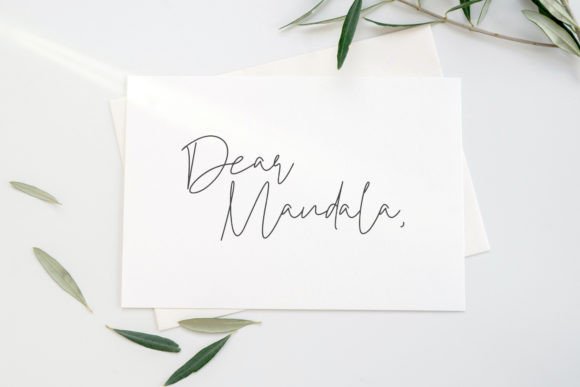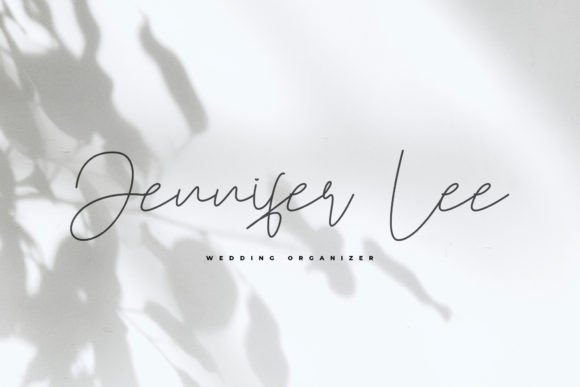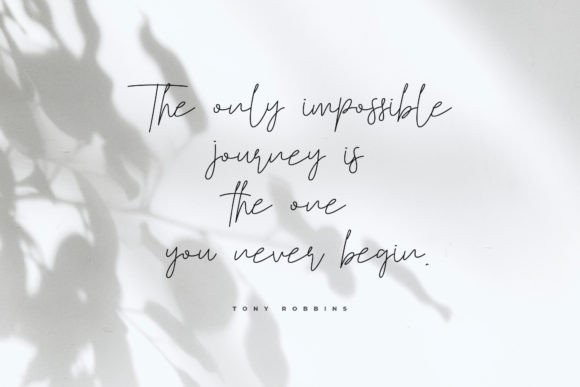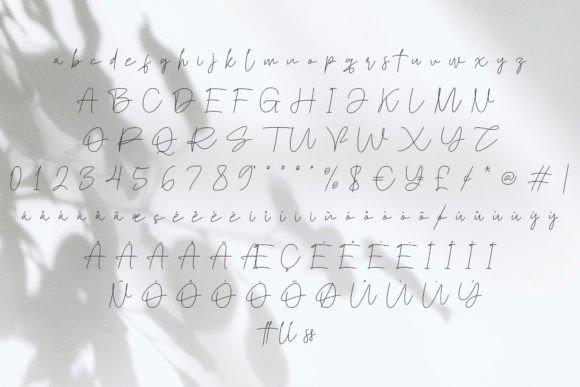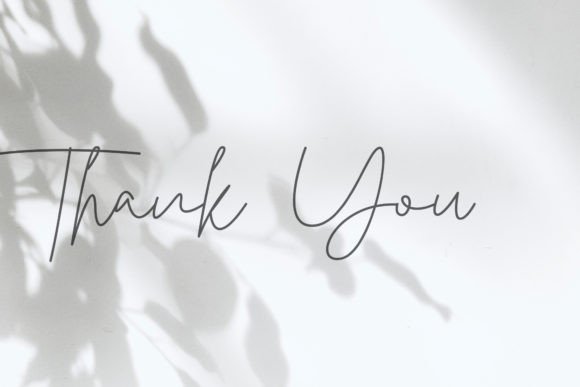
The Southern Font
A Delicate and Elegant Handwritten Typeface
The Southern Font is a delicate, elegant, and flowing handwritten script that adds a refined, personalized touch to any design project. Its beautifully balanced characters and graceful strokes make it an ideal choice for designs that require a timeless, sophisticated style. Whether you’re designing wedding invitations, logos, greeting cards, or social media content, the The Southern Font brings a charming, luxurious appearance that helps your work stand out with grace and elegance.
Perfect for Wedding Invitations and Special Occasions
For wedding invitations and other special occasion stationery, The Southern Font is the perfect choice. Whether you’re designing RSVP cards, thank-you notes, save-the-dates, or event programs, this font adds an elegant and romantic feel to your designs. The flowing script and delicate letterforms ensure your invitations exude a sense of luxury and sophistication, creating memorable and timeless event materials. The Southern Font brings a personalized touch to your celebrations, making it the ideal choice for weddings, anniversaries, and other special events.
Great for Logos and Branding Projects
For logos and branding, The Southern Font offers an artistic and refined style that helps you create a memorable and distinctive brand identity. Whether you’re working on a luxury brand logo, personal brand, or corporate materials, this font adds a beautiful handwritten style to your branding, making your business stand out with elegance and charm. The Southern Font is perfect for businesses in industries like fashion, beauty, and lifestyle, ensuring your branding materials feel both high-end and approachable.
Ideal for Social Media and Digital Content
For social media posts and digital content, The Southern Font is an excellent choice to add a personalized, charming touch. Whether you’re creating Instagram graphics, Pinterest pins, or Facebook posts, this font gives your content an elegant, refined appearance. Perfect for quote graphics, event promotions, or product advertisements, the Southern Font ensures your digital content stands out with a timeless and artistic appeal. It’s a great choice for high-end lifestyle content, ensuring your posts feel sophisticated and captivating.
Ideal for Greeting Cards and Invitations
For greeting cards and invitations, the Southern Font adds an artistic, elegant touch to your designs. Whether you’re designing birthday cards, thank-you notes, or holiday greetings, this font enhances your designs with a personalized, luxurious feel. The beautifully balanced characters ensure that your cards and invitations stand out with a charming, timeless appeal, making them perfect for both formal and casual occasions. The Southern Font ensures your cards leave a lasting impression with their elegant and graceful style.
Perfect for Product Packaging and Labels
For product packaging and labels, The Southern Font offers a premium, refined look to your designs. Whether you’re designing product labels, gift packaging, or seasonal items, this font brings a luxurious and personalized touch to your product branding. Ideal for luxury products, artisan goods, and custom gifts, the Southern Font gives your products an artistic, high-end appearance that ensures they stand out on the shelf or in the market. It’s perfect for conveying a sense of quality and sophistication.
Versatile, Legible, and Elegant
Despite its delicate handwritten design, the Southern Font remains legible and easy to use. The well-spaced characters and consistent strokes ensure that your text remains clear and readable, even for longer passages or smaller sizes. Whether you’re using it for headlines, captions, or body text, this font strikes the perfect balance between creativity and readability, making it suitable for a wide range of design applications, from print to digital media.
The Southern Font is easy to use and integrates smoothly into most design software. Whether you’re working on wedding invitations, logos, greeting cards, or social media content, this font ensures your designs look polished and professional while maintaining a personalized touch. Its versatility makes it perfect for both print and digital media, giving you the flexibility to use it across various projects with ease.
Add Elegance and Timeless Beauty to Your Designs with Southern Font
If you’re looking for a delicate, elegant handwritten font that adds a timeless, personalized touch to your designs, the Southern Font is the perfect choice. Whether you’re designing wedding invitations, logos, greeting cards, or social media posts, this font will help you create memorable, refined designs that stand out. Let the Southern Font bring a graceful, artistic touch to your projects and leave a lasting impression with its elegance and sophistication.